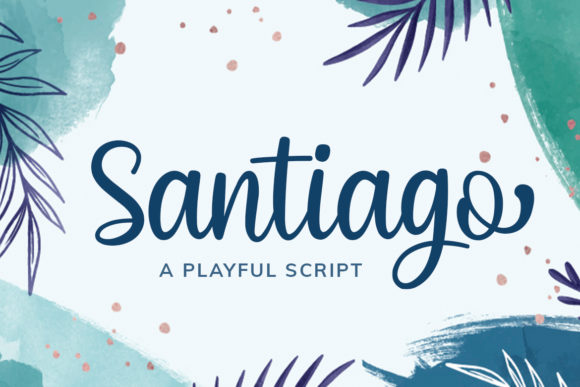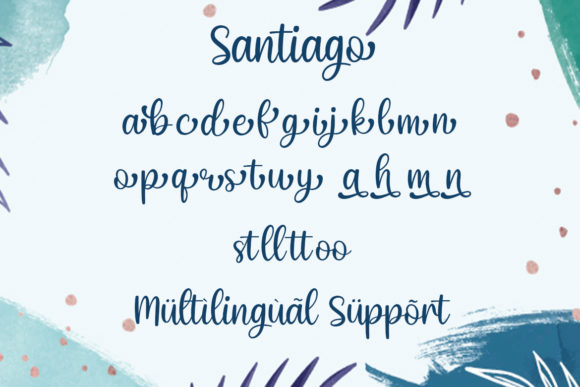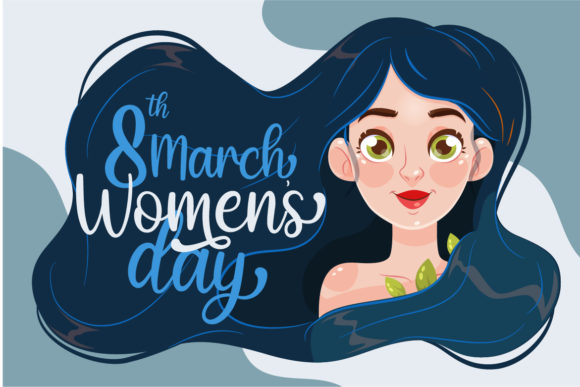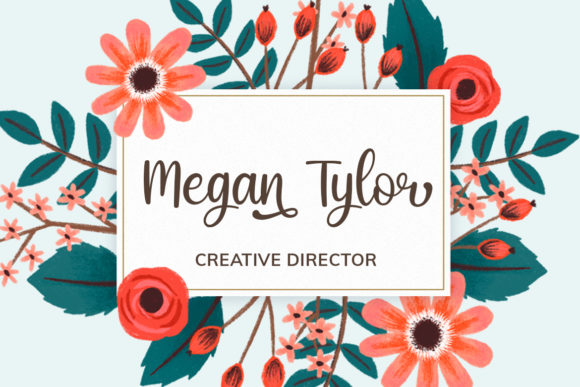
About Santiago Font
Santiago is a modern and cursive handwritten font that features sweet and delicate swashes. This original look will appeal to a wide range of crafty ideas, from letterheads and titles, to stationery.